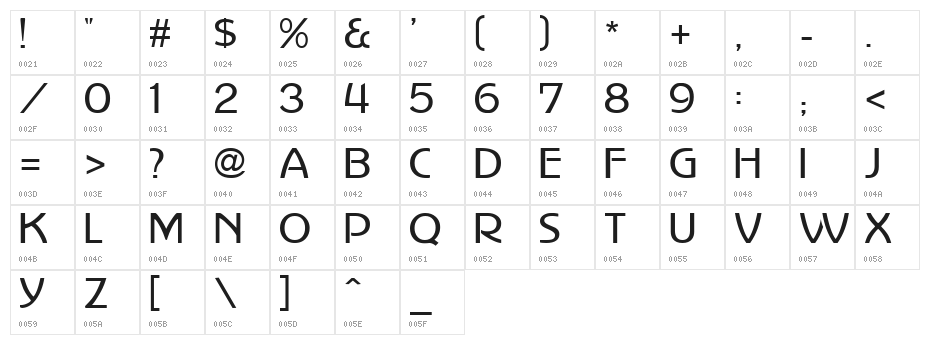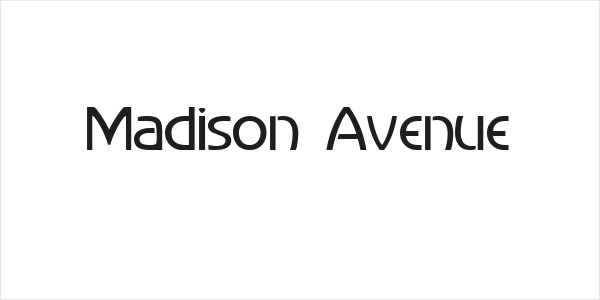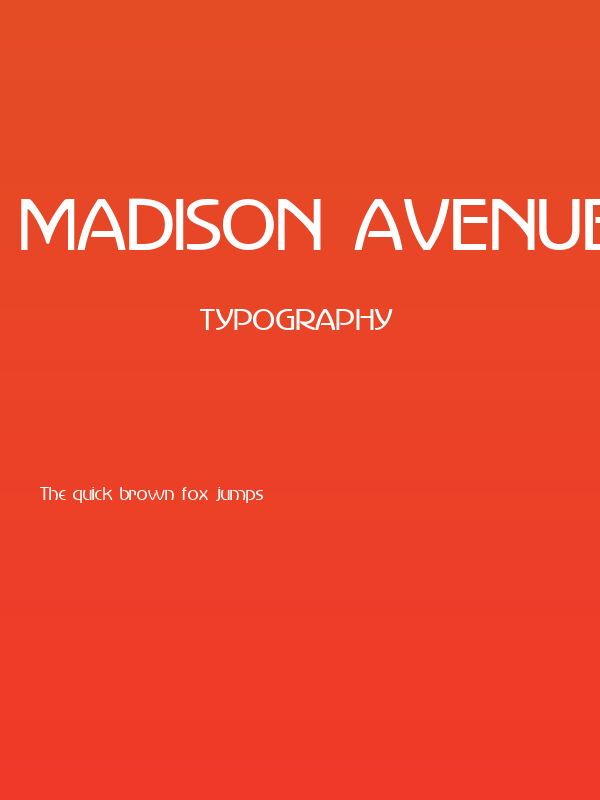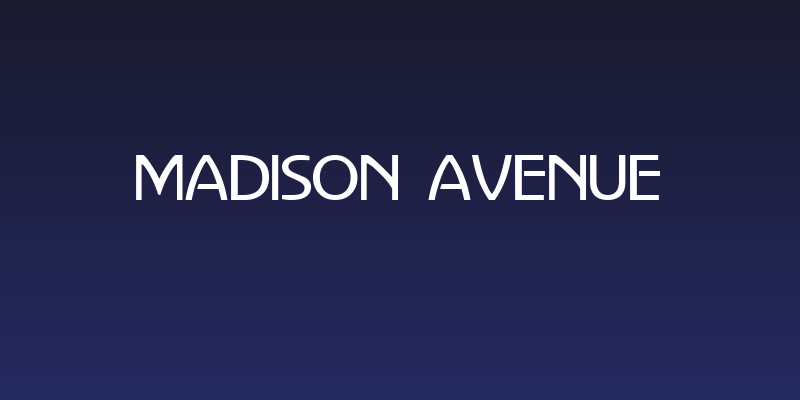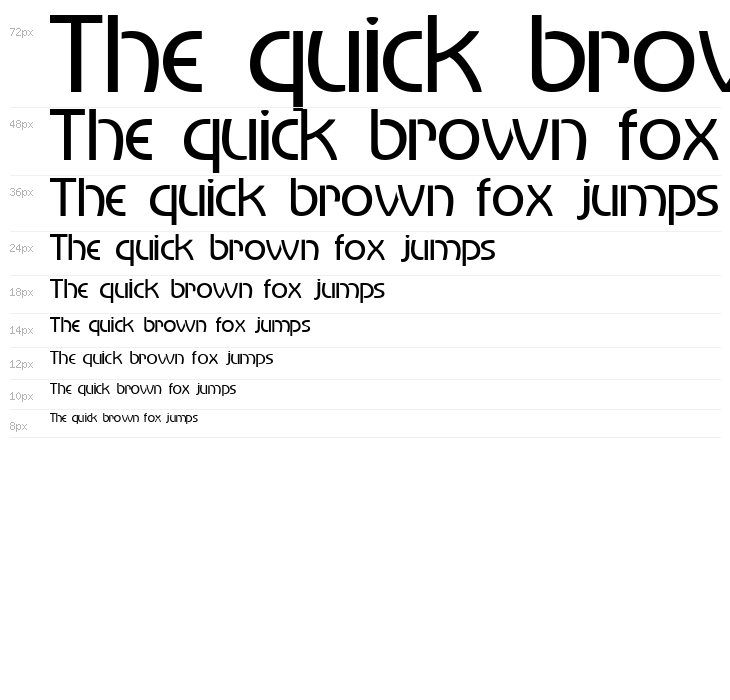
Madison Avenue Font
Madison Avenue Description
This font exhibits a sleek and modern design with a geometric influence. The uppercase letters are bold and assertive, featuring clean lines and a uniform stroke width that conveys a sense of stability and professionalism. The lowercase letters maintain a similar aesthetic, with rounded edges that add a touch of softness to the overall appearance. The numerals are consistent with the letterforms, ensuring readability and balance. Special characters are well-integrated, maintaining the font's cohesive style. This typeface is versatile, suitable for both digital and print media, and can effectively convey a contemporary and sophisticated tone.